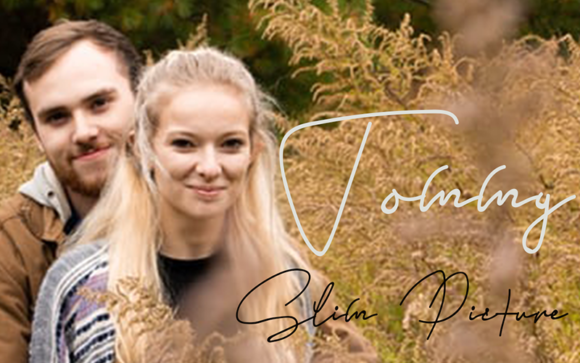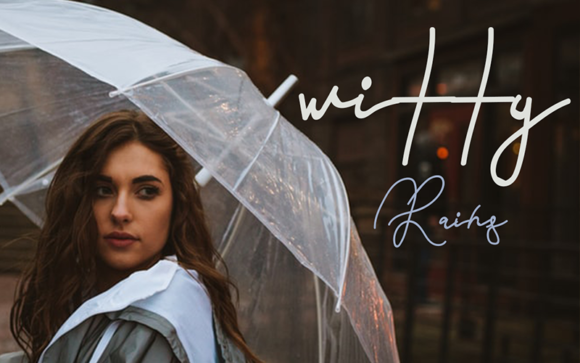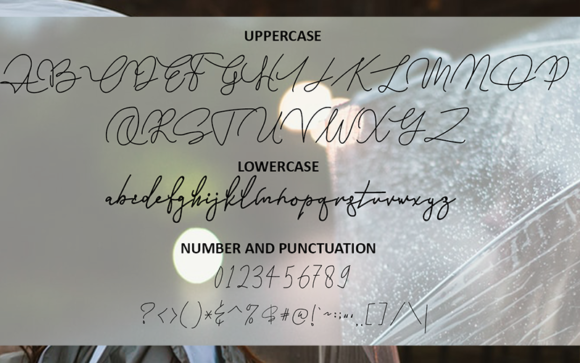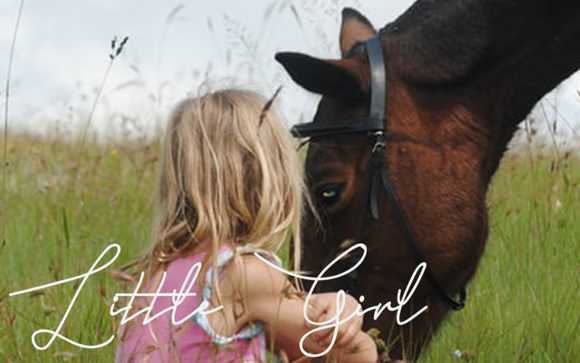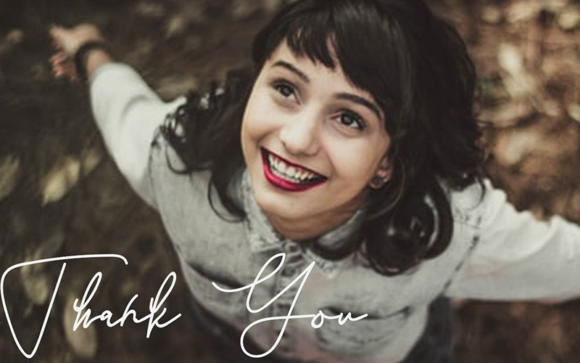
Slim Simple Font
About Slim Simple Font
Slim Simple is a cute and casual handwritten font with an incredibly friendly feel. This font will appeal to a wide range of crafty ideas, from letterheads and titles, to stationery.